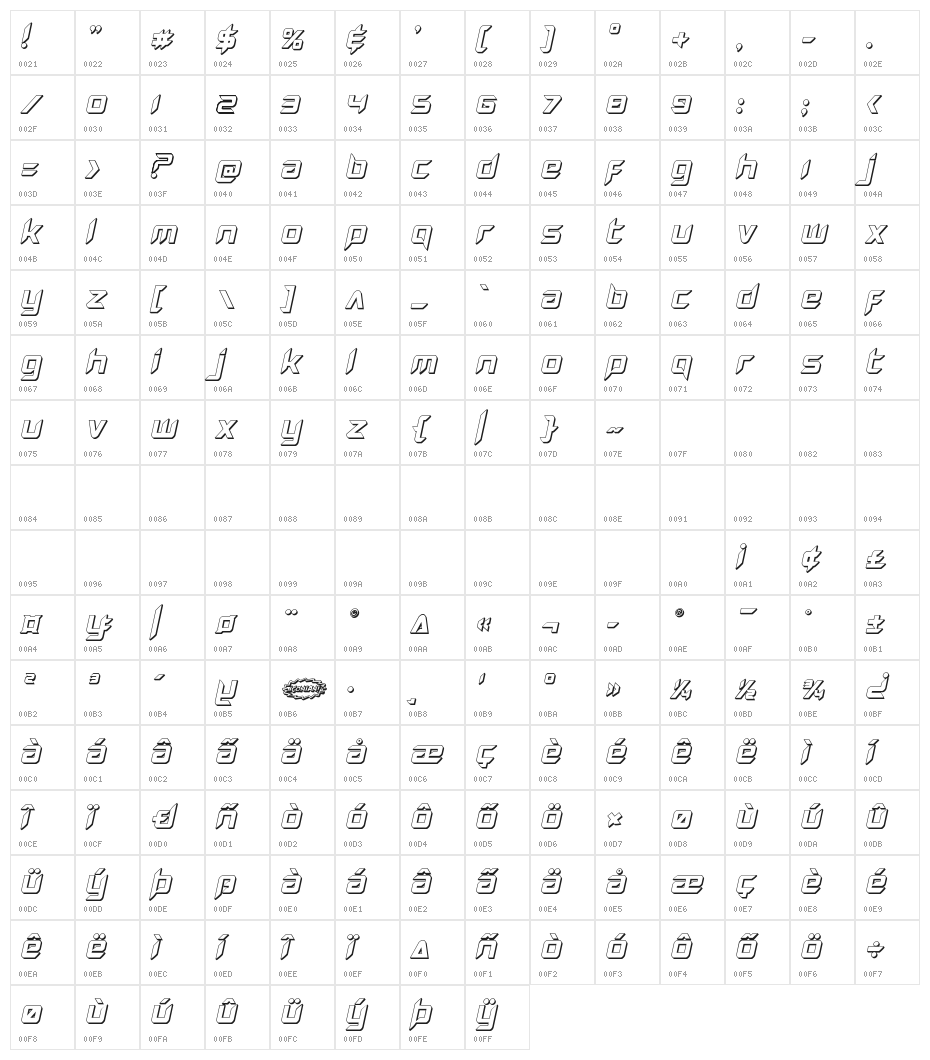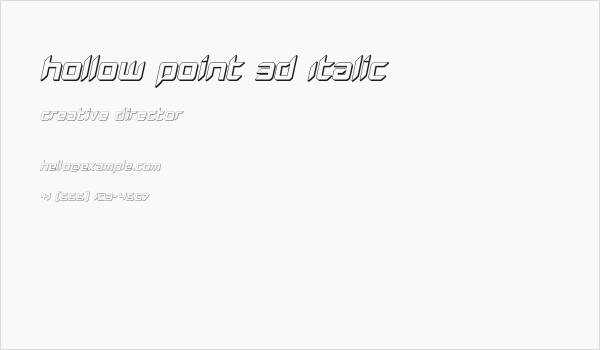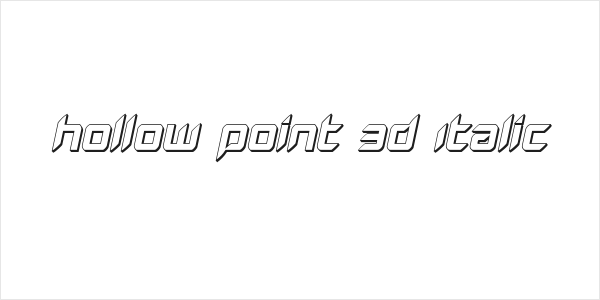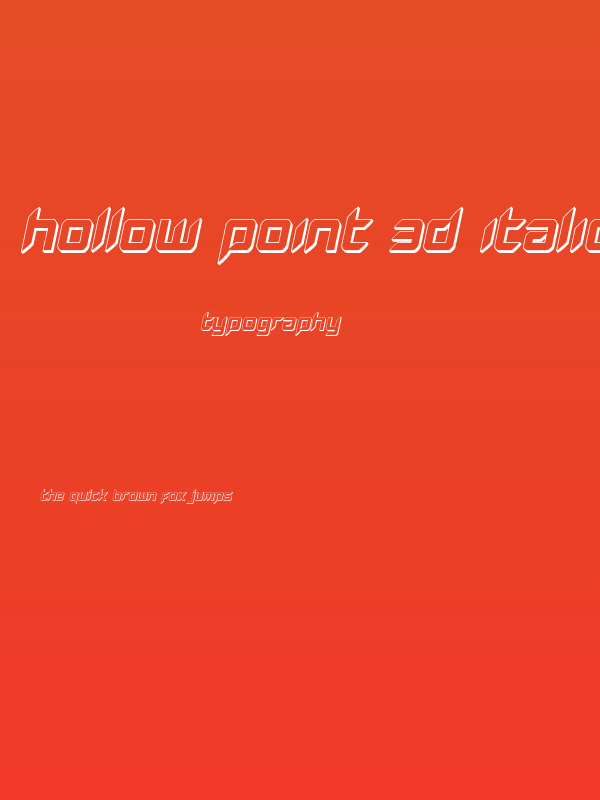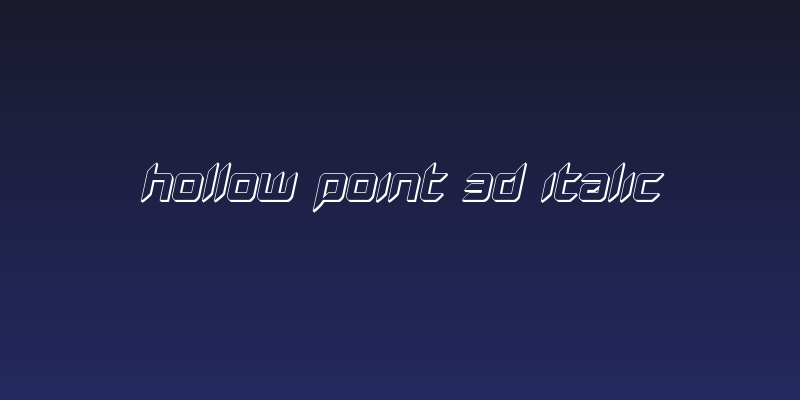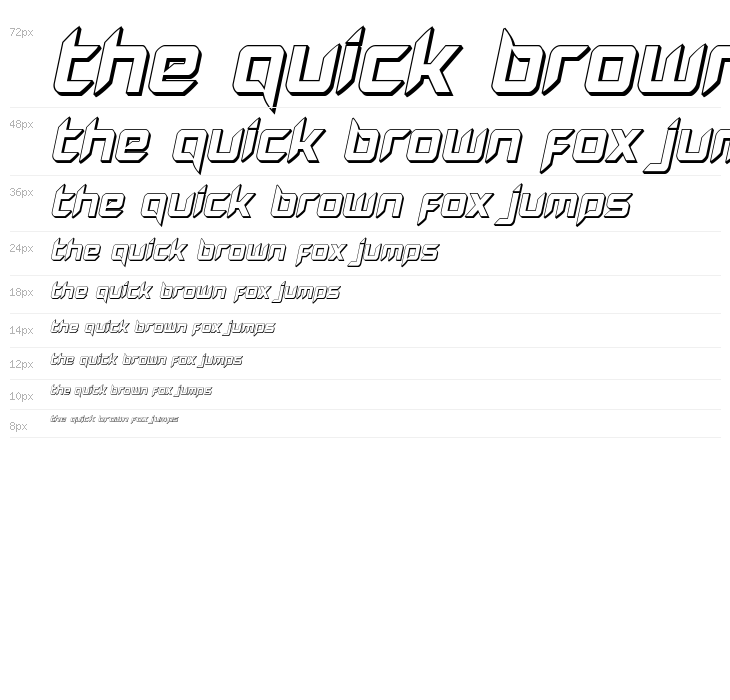
Hollow Point 3D Italic Font
Hollow Point 3D Italic Description
This font features a bold, three-dimensional design with a hollow interior, giving it a striking and dynamic appearance. The italicized slant adds a sense of motion and energy, making it ideal for attention-grabbing headlines or titles. The characters have sharp, angular edges and a futuristic style, reminiscent of digital or sci-fi themes. The spacing between characters is tight, enhancing the compact and impactful look. This font is particularly suitable for projects that require a modern and edgy aesthetic.
| Proposed Projects | Ideal for sci-fi movie posters, video game covers, tech branding, and modern advertising campaigns. |